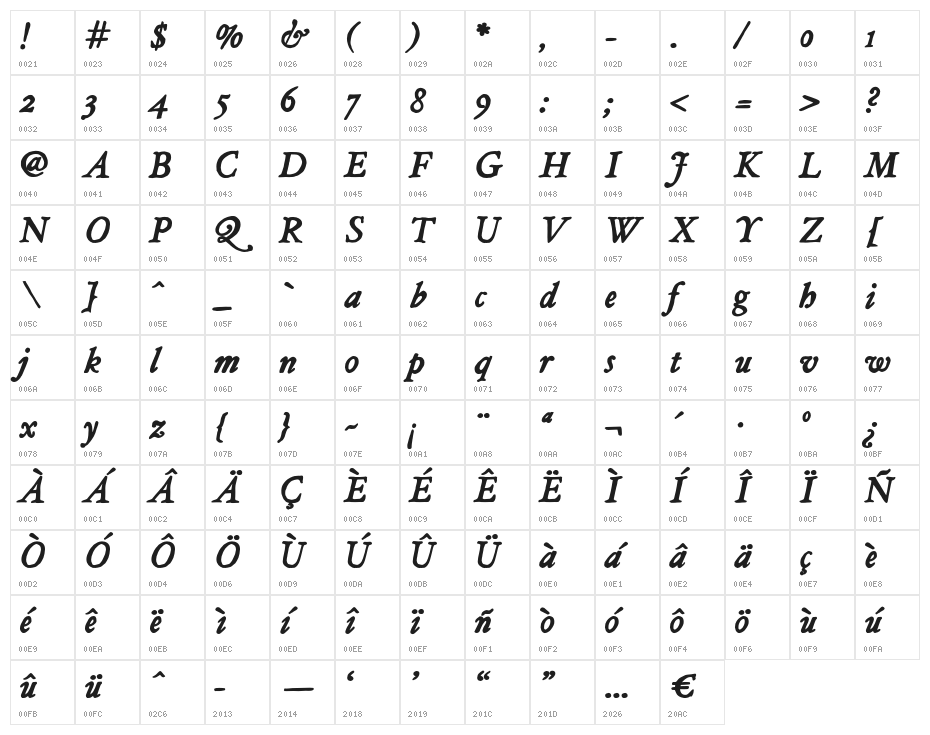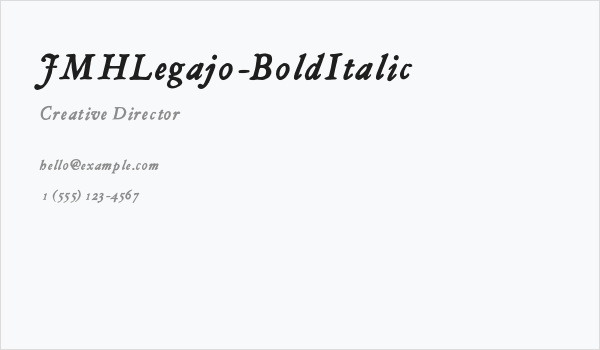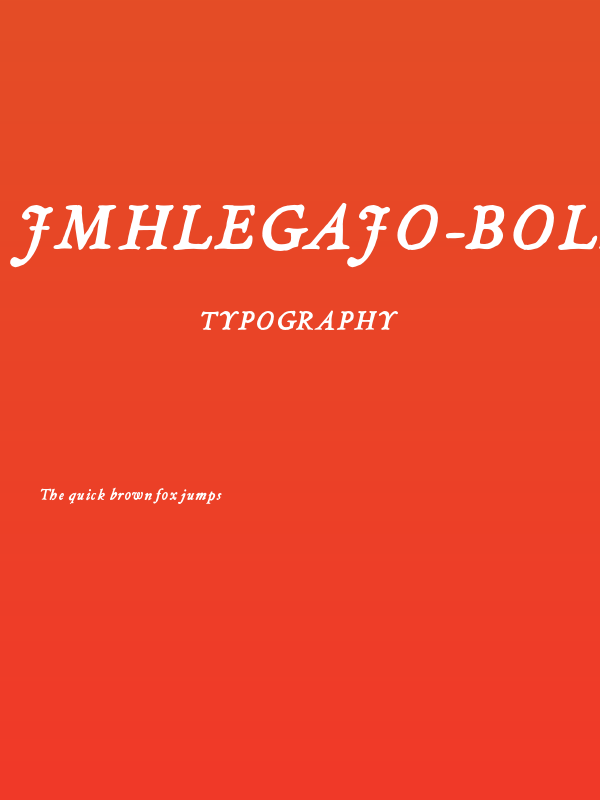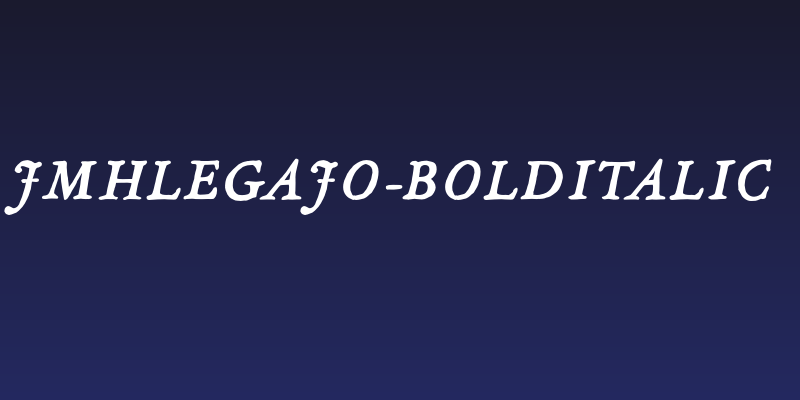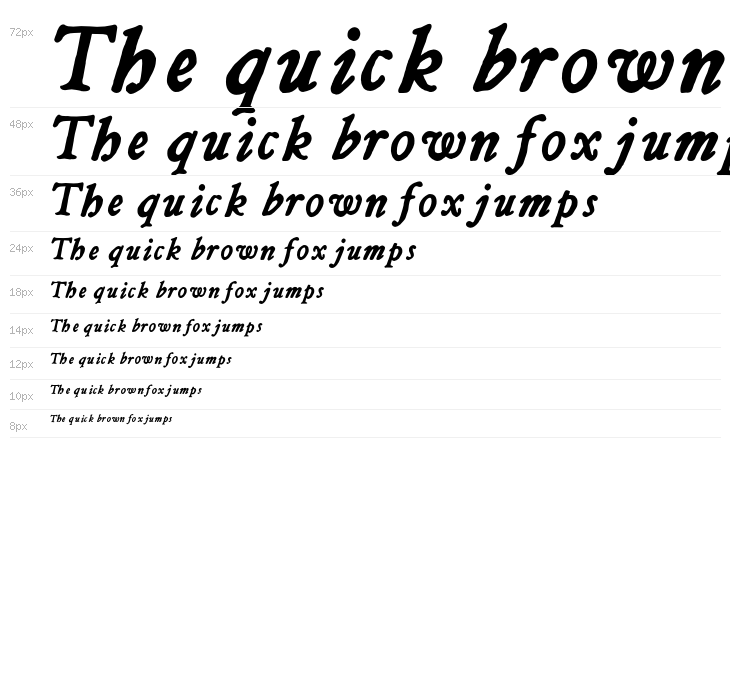
JMHLegajo-BoldItalic Font
JMHLegajo-BoldItalic Description
This font features a bold and italic style with a distinct slant, giving it a dynamic and expressive appearance. The characters are well-defined with a consistent stroke width, enhancing readability while maintaining a stylish flair. The uppercase letters exhibit a classic elegance, while the lowercase letters are more rounded and flowing, adding a touch of sophistication. The numerals are clear and bold, ensuring they stand out in any context. Special characters are designed with the same attention to detail, making them suitable for a variety of uses.
| Proposed Projects | Ideal for branding, headlines, posters, and invitations where a bold and elegant statement is needed. |